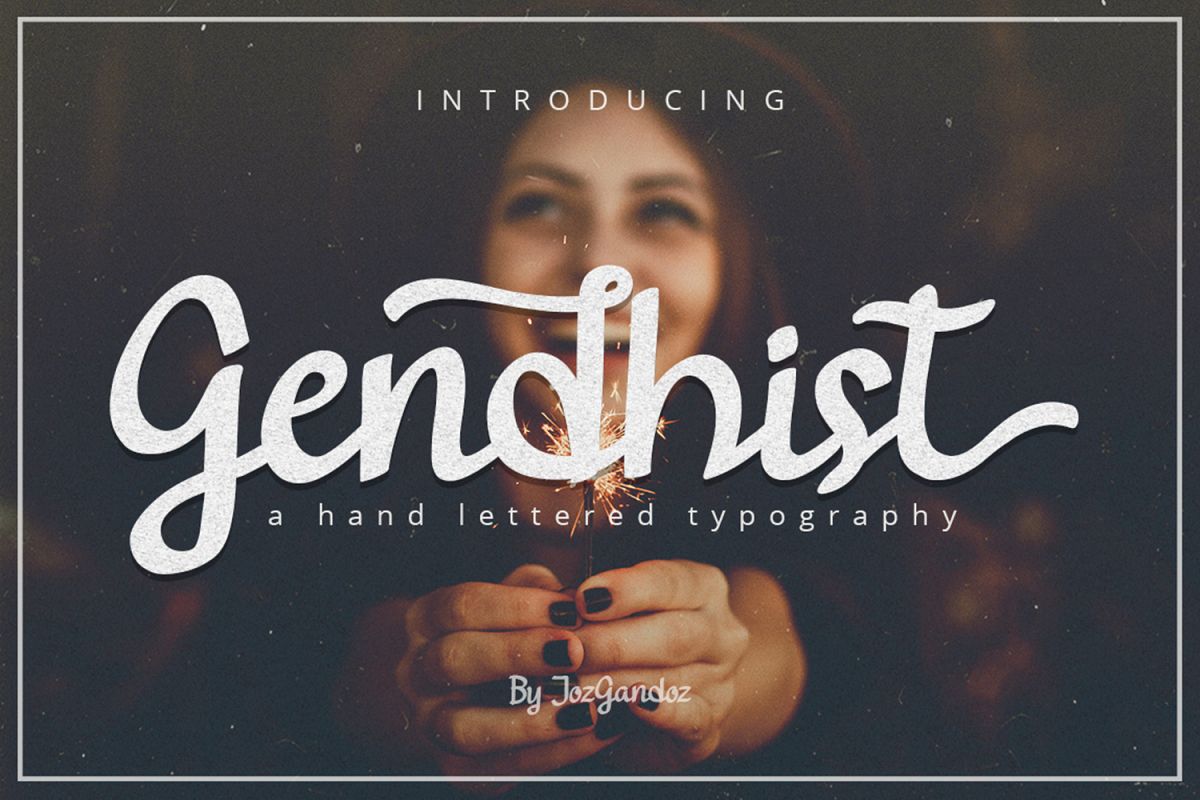
Gendhist Font
gendhist
Introducing: Gendhist! a simple font, inspired from handwritten font. Gendhist is great for branding design, homeware designs, product packaging  or simply design with stylish text overlay to any background image.
- uppercase & lowercase letters
- numbers & punctuation
- some alternate glyph